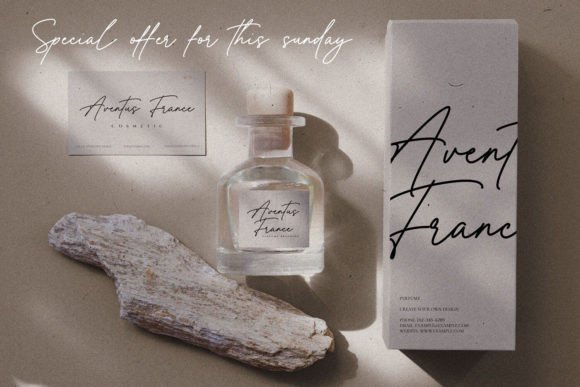
Bella Hestina Font: Elevate Your Design with Modern Elegance
In the world of typography, fonts play a crucial role in conveying messages, expressing emotions, and creating a lasting impression. Among the numerous fonts available, Bella Hestina stands out as a modern style font that exudes professionalism, elegance, and sophistication. This comprehensive article will delve into the features, benefits, and applications of Bella Hestina, exploring how it can elevate your design projects to new heights.
What is Bella Hestina Font?
Bella Hestina is a modern, minimalist, and elegant font designed to cater to the needs of creative professionals, designers, and businesses. Its sleek and stylish appearance makes it an ideal choice for various design projects, including branding, advertising, and marketing materials. The font’s clean lines, subtle curves, and precise craftsmanship ensure excellent readability, making it perfect for both digital and print applications.
Key Features of Bella Hestina Font
- Modern and Minimalist Design: Bella Hestina boasts a contemporary design with a minimalist approach, making it versatile and adaptable to various design contexts.
- Elegant and Sophisticated: The font’s elegant curves and lines evoke a sense of sophistication, perfect for high-end branding, luxury products, and premium services.
- Excellent Readability: Bella Hestina’s clear and precise design ensures excellent readability, even at small font sizes, making it suitable for body text and captions.
- Stylish and Catchy: The font’s unique character and stylish appearance make it perfect for headlines, titles, and attention-grabbing text elements.
- PUA Encoded: Bella Hestina is PUA (Private Use Area) encoded, allowing easy access to a wide range of glyphs, ligatures, and special characters.
Applications of Bella Hestina Font
Bella Hestina’s versatility makes it suitable for a wide range of design projects, including:
- Branding and Logo Design: Create stunning logos, watermarks, and brand identities with Bella Hestina’s elegant and modern design.
- Wedding and Event Design: Use Bella Hestina to create beautiful wedding invitations, programs, and event materials that exude elegance and sophistication.
- Photography and Album Design: Add a touch of professionalism to your photography and album designs with Bella Hestina’s clean and stylish font.
- Magazine and Publication Design: Use Bella Hestina as a body font or headline font in your magazine, newspaper, or book designs.
- Business Card and Stationery Design: Create memorable business cards, letterheads, and stationery with Bella Hestina’s modern and elegant design.
Benefits of Using Bella Hestina Font
By incorporating Bella Hestina into your design projects, you can:
- Enhance Your Brand Image: Bella Hestina’s modern and elegant design helps create a professional and sophisticated brand image.
- Increase Readability: The font’s excellent readability ensures that your message is conveyed clearly and effectively.
- Stand Out from the Crowd: Bella Hestina’s unique character and stylish appearance help your design stand out in a crowded market.
- Save Time and Effort: The font’s PUA encoding and extensive character set save you time and effort in designing and editing your content.
Bella Hestina is a versatile and elegant font that can elevate your design projects to new heights. Its modern, minimalist, and sophisticated design makes it perfect for a wide range of applications, from branding and advertising to photography and publication design. With its excellent readability, stylish appearance, and PUA encoding, Bella Hestina is an ideal choice for creative professionals and businesses seeking to create a lasting impression.